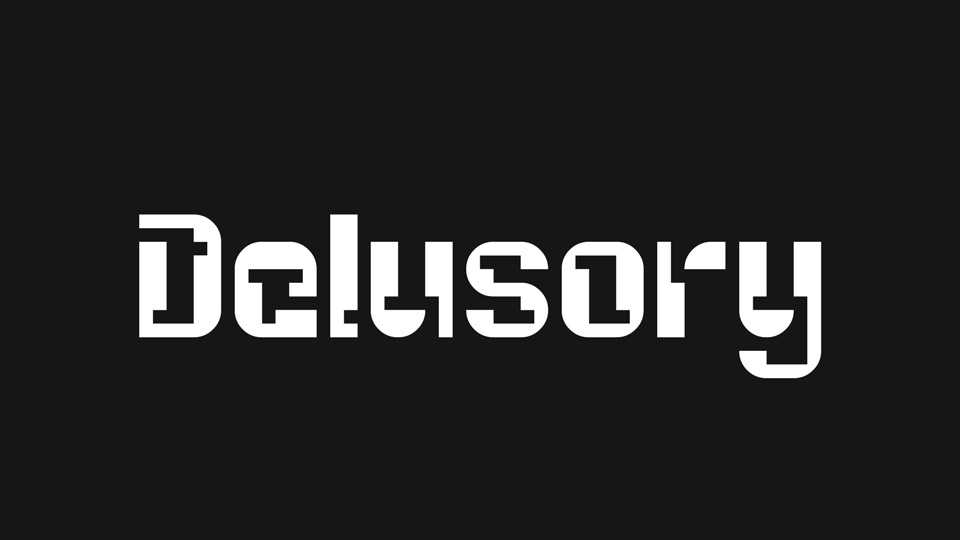
Download Delusory font, a modular geometric display typeface with glitch-like inktraps. Delusory is great for tech-related projects, games, posters and so on.